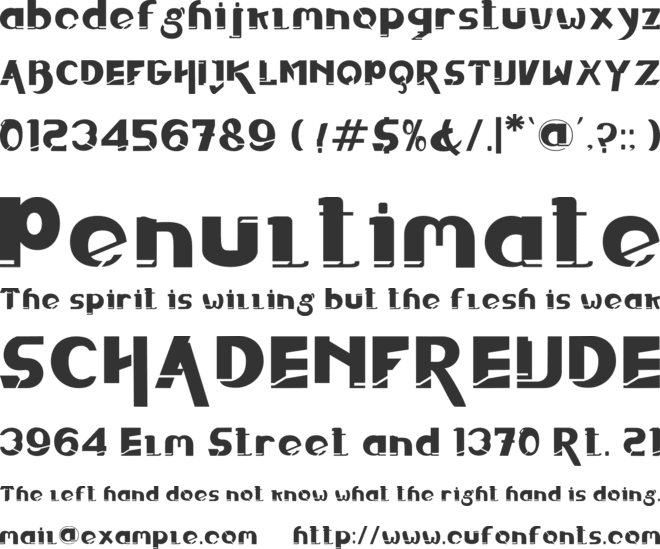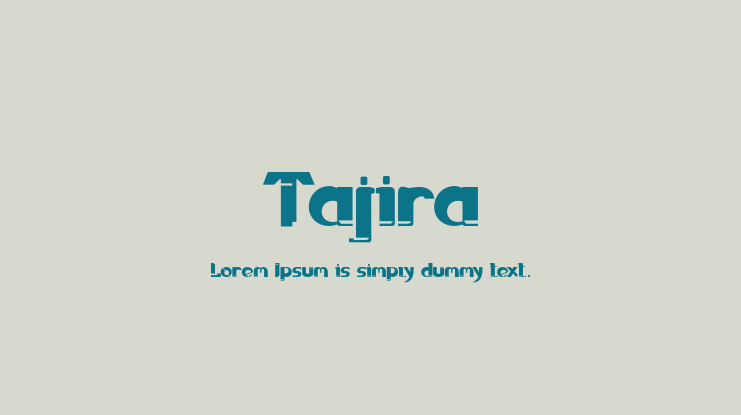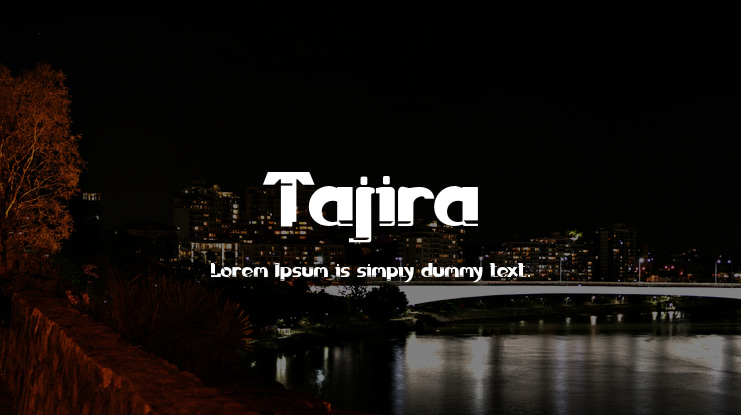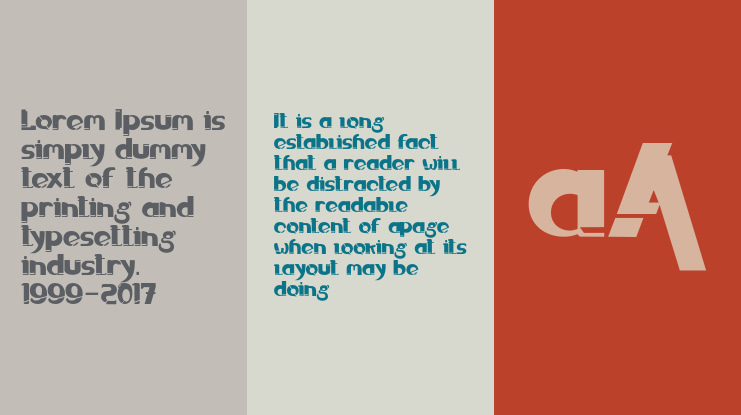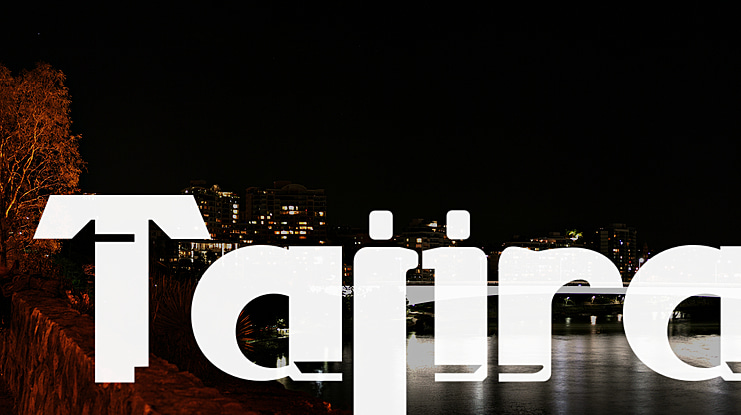
Tajira Font
It’s a Modern unique serif font. This font is made for  logos of Technology and brands and also suitable for posters, t-shirt, packaging, branding, logotype, digital design, document type and more.
Tajira very good for magazine header, typography, clothes, Poster,  brochures and  packaging. Tajira font is perfect for your design needs, making your designs more modern and professional.